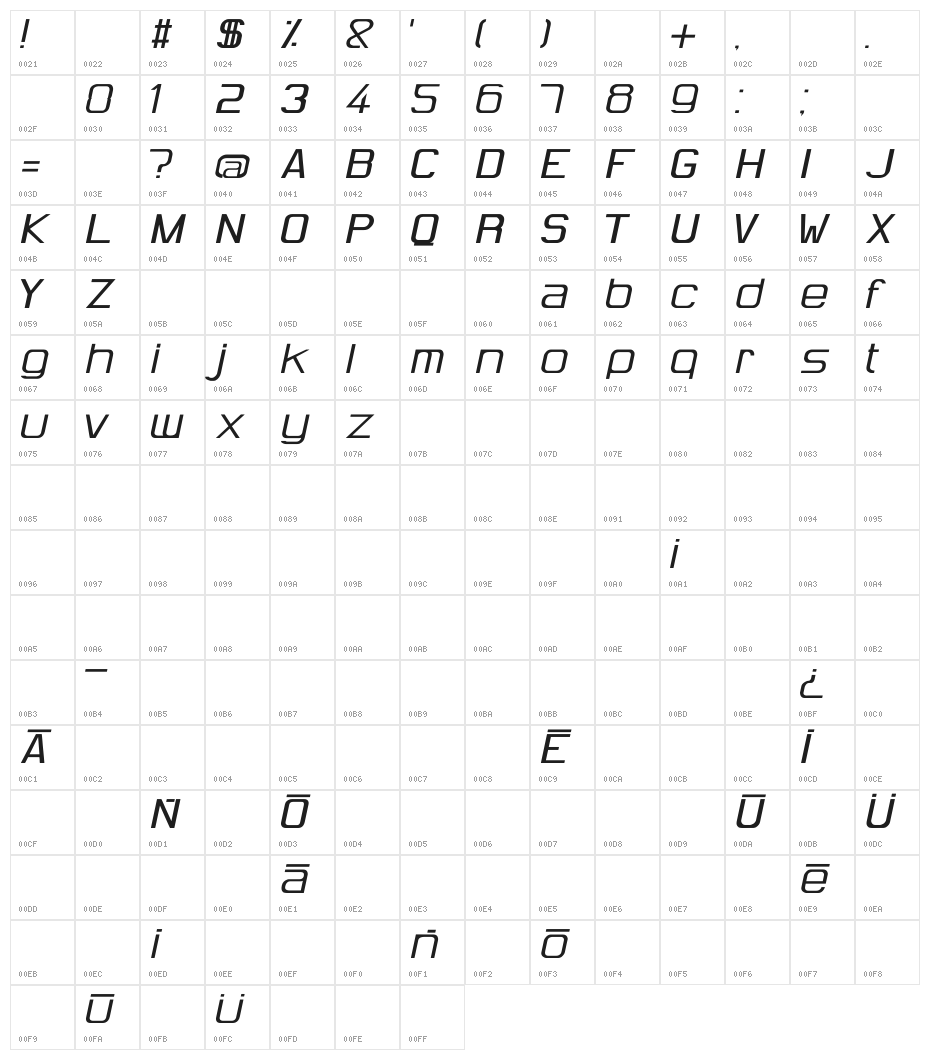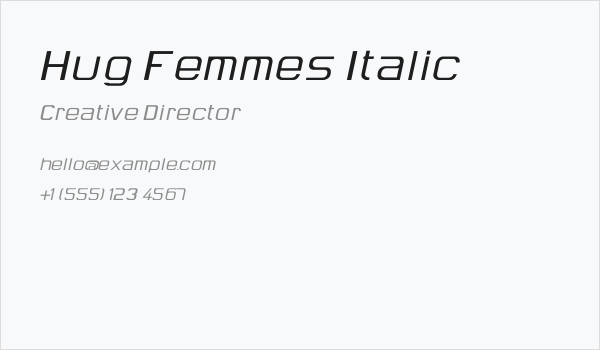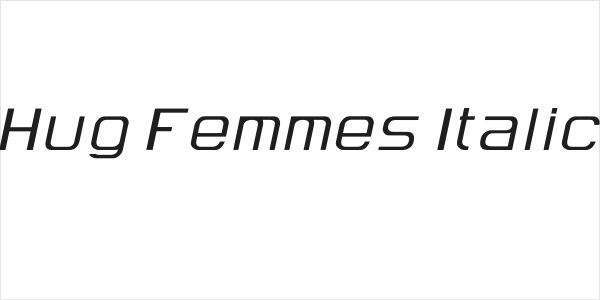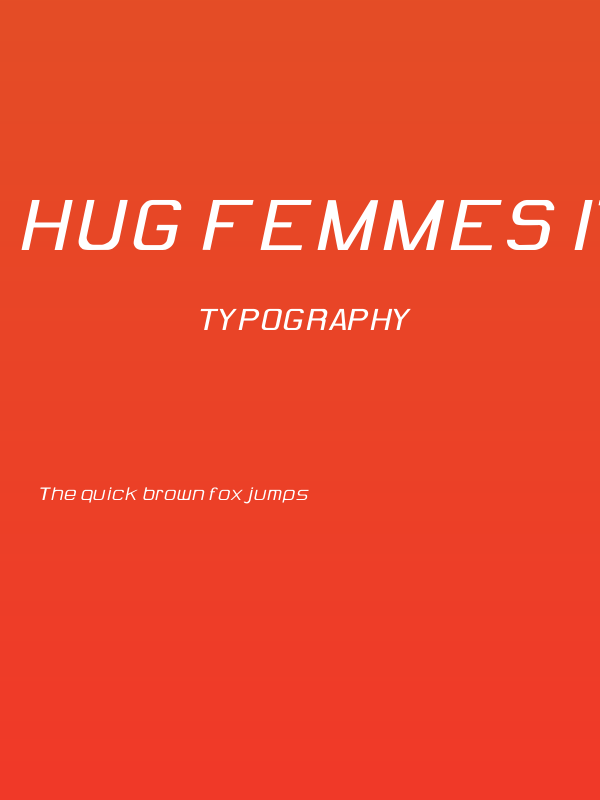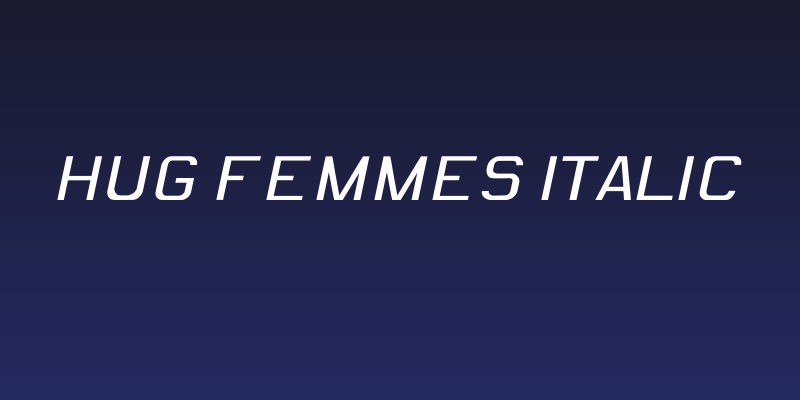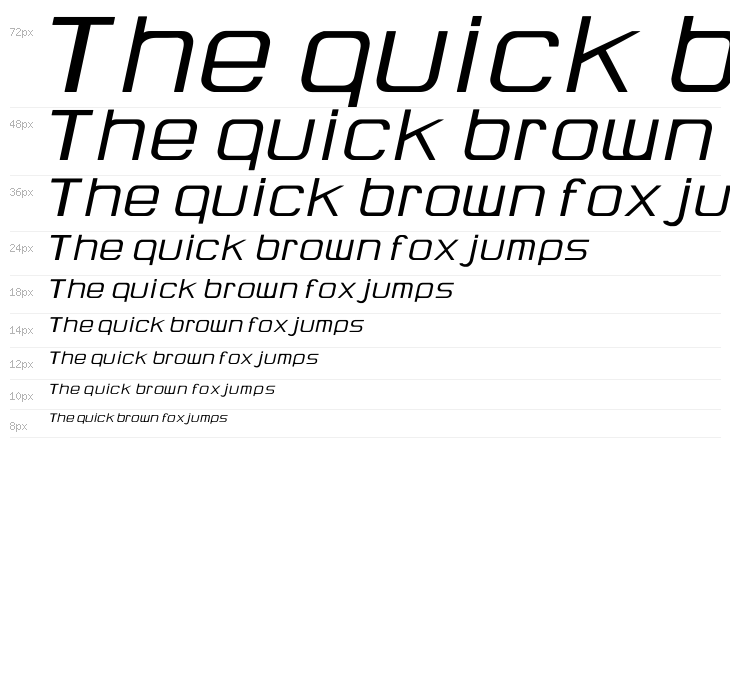
Hug Femmes Italic Font
Hug Femmes Italic Description
This font features a sleek, italicized style with a modern and dynamic appearance. The characters are slightly slanted, giving a sense of motion and fluidity. The uppercase and lowercase letters maintain a consistent stroke width, contributing to a clean and uniform look. The numbers and special characters are designed to complement the alphabet, with a similar slant and structure. The overall design is minimalistic yet impactful, making it suitable for contemporary projects.
| Use Case | Headlines, Logos, Digital media |
| Proposed Projects | Ideal for branding, advertising, and digital media projects that require a modern and stylish touch. |